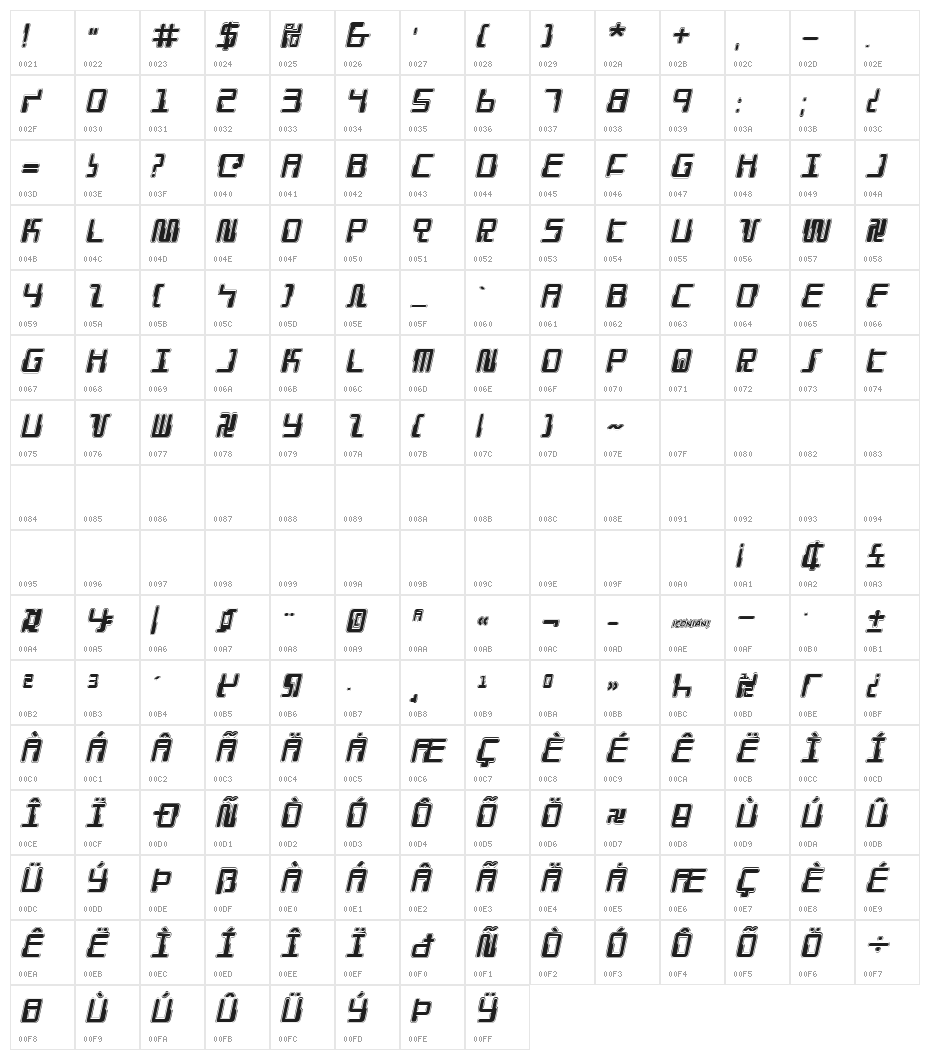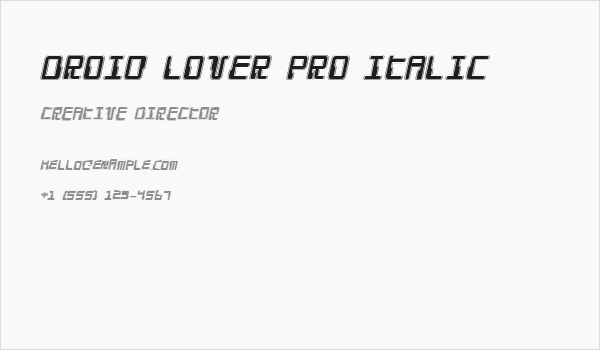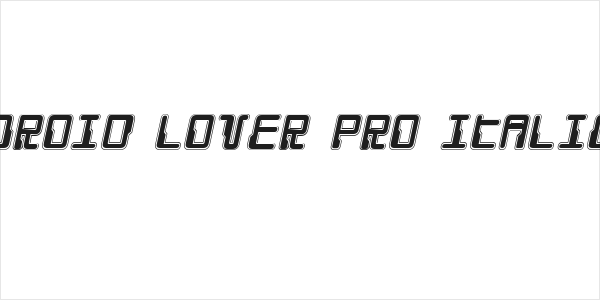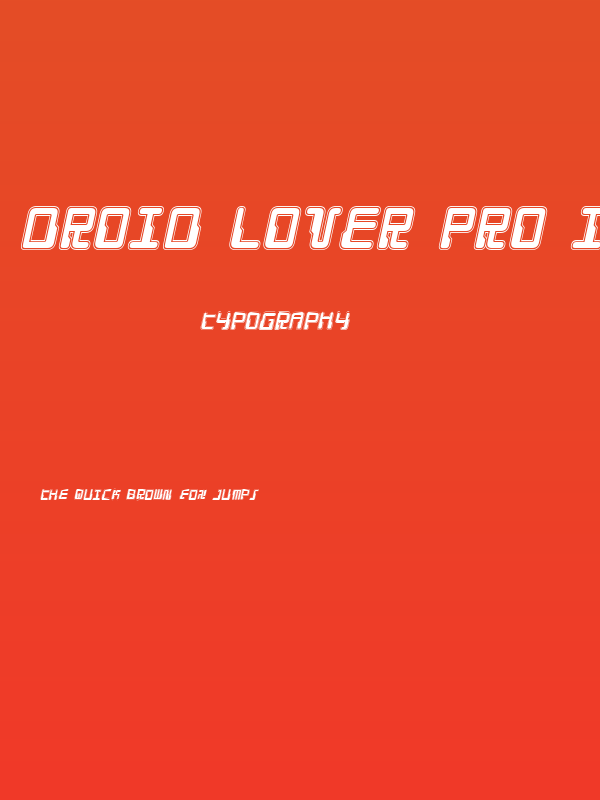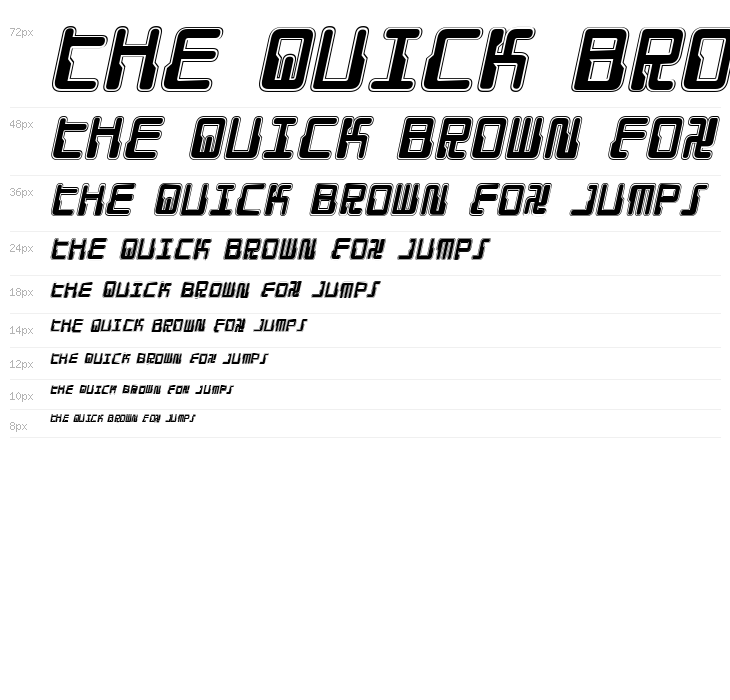
Droid Lover Pro Italic Font
Droid Lover Pro Italic Description
This font features a futuristic and tech-inspired design with a distinct italic slant. The characters are outlined with a bold, double-line structure that gives a sense of depth and dimension. The geometric shapes and sharp angles contribute to its modern and digital aesthetic, making it ideal for projects that require a high-tech or sci-fi feel. The uppercase and lowercase letters maintain a consistent style, while the numerals and special characters complement the overall design. The font's unique style is both eye-catching and versatile, suitable for various creative applications.
| Proposed Projects | Ideal for sci-fi movie posters, tech company logos, video game titles, and digital media projects. |